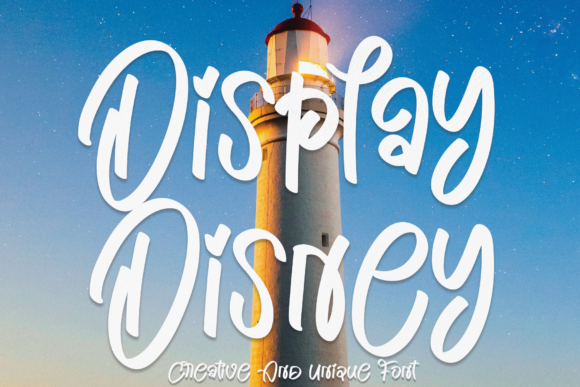
Unlock the Magic of Display Disney Font
Do you remember that moment when you finally found the perfect font to bring your design to life? The one that makes your words dance across the page, and your creativity soar? For many designers, that moment is elusive, but with the right tools, it’s within reach. Display Disney Font is here to cast its spell, and we can’t wait to share its magic with you.
This chic and whimsical script font is more than just a pretty face – it’s a versatile tool that can elevate any project. Whether you’re designing a children’s book, a wedding invitation, or a social media campaign, Display Disney Font has the potential to make your creations stand out. Its unique charm and character will captivate your audience, making it a valuable addition to any designer’s font library.
Display Disney Font Key Features
- Unique Characteristics: The Display Disney Font features a distinctive, bold, and playful design inspired by classic Disney typography, making it perfect for use in branding, advertising, and entertainment projects.
- Character Set: The font includes a comprehensive character set, including uppercase and lowercase letters, numerals, punctuation marks, and special characters, making it suitable for a wide range of applications.
- Support for Advanced Typography: The Display Disney Font supports advanced typography features, including ligatures, swashes, and contextual alternates, allowing designers to create complex and visually appealing typography.
Display Disney Font Review
Overall, I’m impressed with the Display Disney Font, but it has some limitations that might make it less suitable for certain projects. Let’s dive into what works well and what doesn’t.
- The font has a unique and whimsical feel to it, perfect for projects that need a touch of Disney magic.
- The bold and playful style makes it ideal for titles and headings.
- The font is highly customizable, allowing designers to adjust the size, color, and spacing to fit their project’s needs.
- The font may not be suitable for body text, as it can be difficult to read in smaller sizes.
- The font’s unique style may not be for everyone, and some designers may find it too playful or childish.
- The font is not as versatile as some other display fonts, and may not work well in all design contexts.
In conclusion, the Display Disney Font is a great choice for projects that need a touch of Disney magic, but it’s not a one-size-fits-all solution. Designers should carefully consider their project’s needs before choosing this font.
Alternatives to Display Disney Font for Designers
Cambria
Cambria is a classic serif font that is often used in formal and professional settings. It is a great alternative to Display Disney Font when you need a sophisticated and elegant look. Cambria is highly legible and works well in both print and digital media. It is available in a wide range of languages and is a great choice for body text, headings, and titles.
Comparison to Display Disney Font: Cambria is more formal and serious than Display Disney Font, which is often used in playful and whimsical designs. While Display Disney Font is more cursive and decorative, Cambria is a more traditional serif font.
Playfair Display is a luxurious and elegant serif font that is perfect for high-end designs. It is a great alternative to Display Disney Font when you need a sophisticated and luxurious look. Playfair Display is highly decorative and works well in headings, titles, and other display text.
Comparison to Display Disney Font: Playfair Display is more formal and elegant than Display Disney Font, which is often used in playful and whimsical designs. While Display Disney Font is more cursive and decorative, Playfair Display is a more traditional serif font with a touch of luxury.